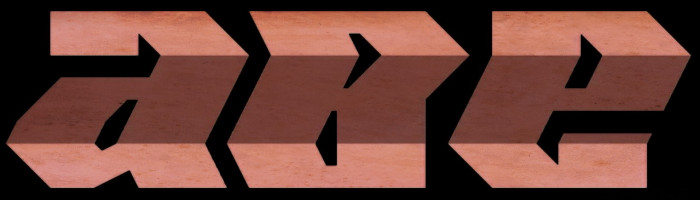
Now, with the folding effect already incorporated into the font. Some kerning issues and adjust improved too. It's more easy to change the diverse colours of central body and bright zones on the font. Enjoy.
A fantastic variant with excellent shading
How brilliant! The shading only highlights how perfectly conceived the original was. Amazing.